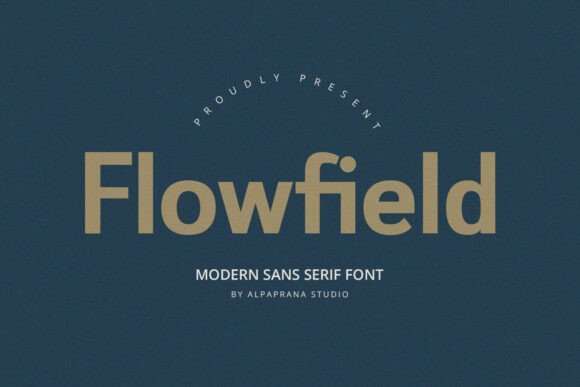
Unleashing Creativity with the Perfect Font
As a designer, there’s nothing quite like the rush of creating something from scratch – the blank page, the spark of an idea, and the thrill of watching it come to life. For me, that moment often starts with the perfect font. And today, I’m excited to introduce you to one that I think will become your new go-to: Flowfield Font.
Flowfield Font is a beautiful sans-serif typeface that exudes elegance and modernity. Its versatility makes it perfect for a wide range of design projects, from branding and logo design to clothing, posters, and magazine layouts. What sets it apart, however, is its attention to detail and the care that has gone into crafting every aspect of the font. Whether you’re a seasoned designer or just starting out, Flowfield Font is sure to become an invaluable tool in your creative arsenal.
Key Features of Flowfield Font
- Font Family: Flowfield Font is a unique, modern sans-serif font designed for digital use.
- Unique Characteristics: Flowfield Font features a distinctive, flowing design with subtle rounded edges and a high x-height, making it perfect for digital interfaces, signage, and branding materials.
- Language Support: Flowfield Font supports a wide range of languages, including Latin, Cyrillic, and Greek scripts, making it a versatile choice for global branding and design projects.
Designer Review: Flowfield Font
Flowfield Font is an interesting take on modern typography, and I’d love to share my honest thoughts on its strengths and weaknesses. ✨ One thing that stands out is its unique blend of minimalism and dynamism. The font’s flowing lines and subtle nuances create a captivating visual experience that’s perfect for creative projects.
- ✨ Unique aesthetic: Flowfield Font’s distinct design is sure to make your work stand out in a crowded market.
- ✨ Highly legible: The font’s clean lines and precise letterforms ensure that your text is easy to read, even at smaller font sizes.
- ✨ Great for creative projects: Flowfield Font’s expressive and emotive nature makes it an excellent choice for art, design, and other creative endeavors.
However, I do have some concerns that might affect its usability in certain situations. ⚠️ Here are a few limitations I’ve encountered:
- ⚠️ Limited font sizes: Flowfield Font seems to work best at larger font sizes, and its legibility can suffer at smaller sizes.
- ⚠️ No bold or italic weights: The font’s lack of bold and italic variations might limit its versatility in certain design contexts.
Overall, I’d say that Flowfield Font is a great choice for designers who want to add some visual interest to their work. While it may have its limitations, its unique aesthetic and high legibility make it a valuable addition to any designer’s toolkit.
Flowfield Font is ideal for:
- Designing brand identities and logos.
- Creating typography-based artwork.
- Developing presentations and reports.